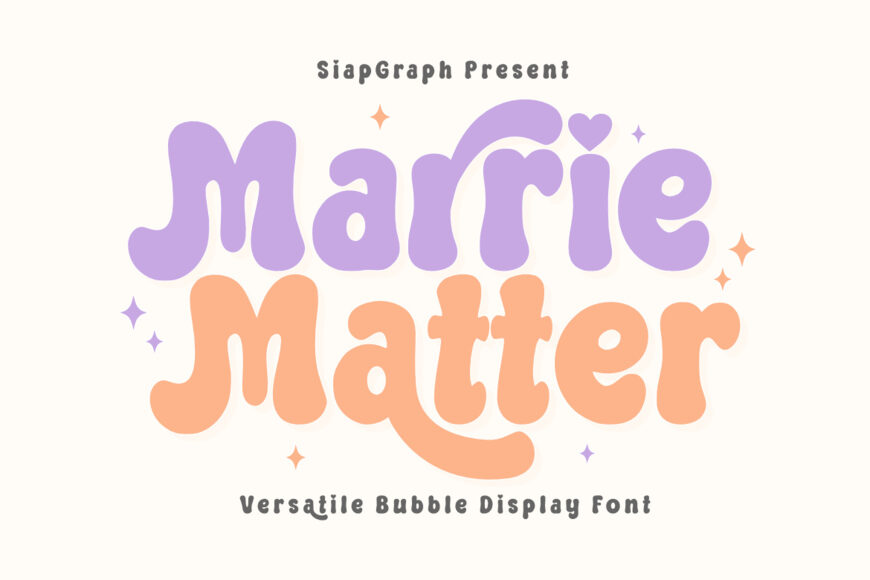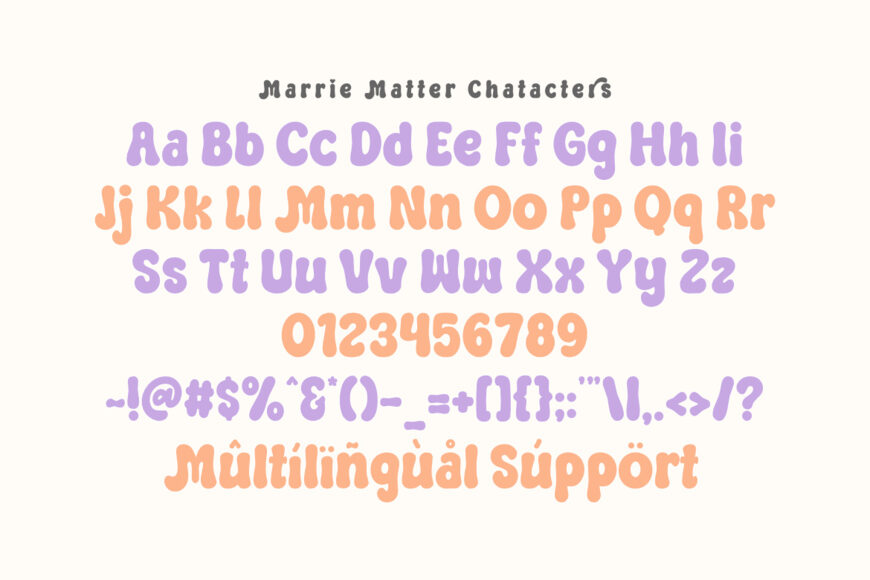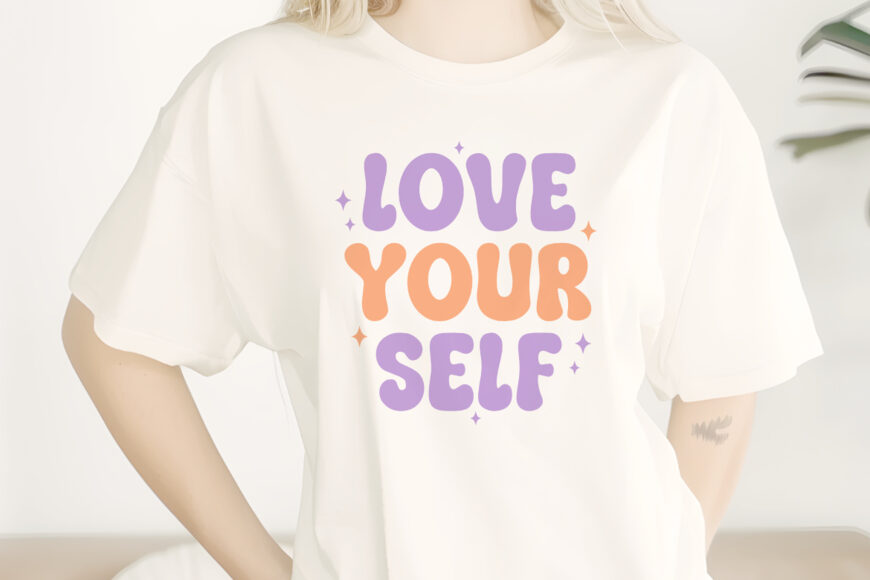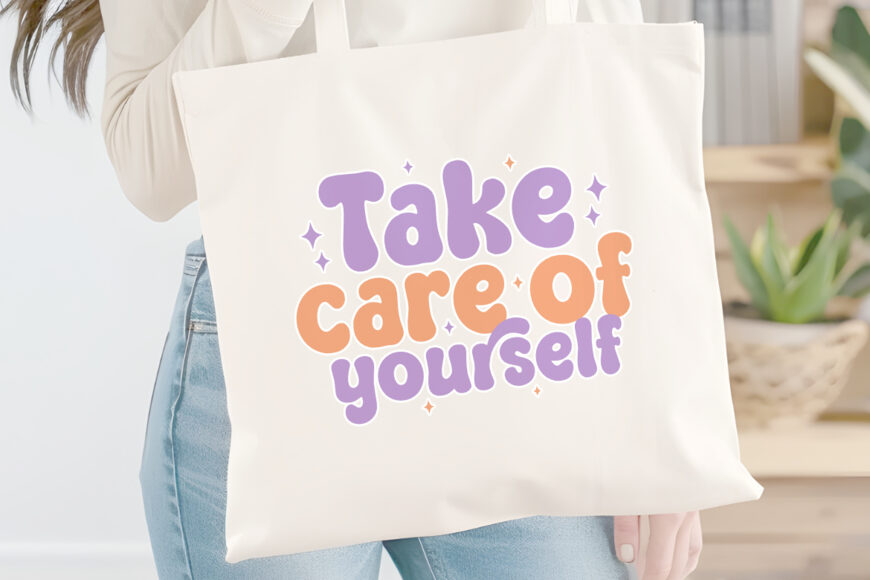
Marrie Matter Font
Marrie Matter is a playful bubble display font filled with cheerful energy. Its thick, rounded, bouncy letters create a soft, friendly, and charming look. Designed with crafters in mind, its bold shapes work smoothly for vinyl cutting, sublimation, and high-quality digital printing.
Ideal for SVG cut files, personalized stickers, children’s party décor, nursery art, t-shirts, greeting cards, branding, and social media graphics. Perfect for POD sellers and DIY enthusiasts, it adds whimsical readability to birthdays, Valentine’s Day, spring celebrations, and Children’s Day projects with a sweet, bubbly, retro-inspired style.